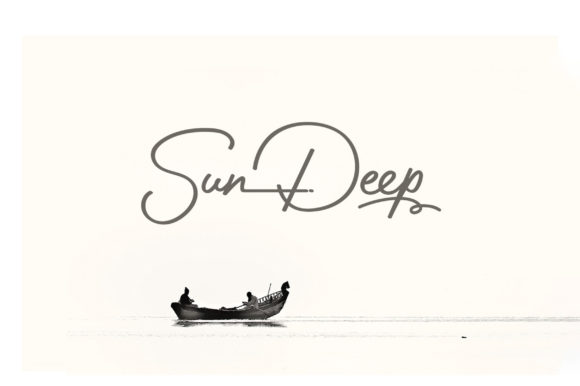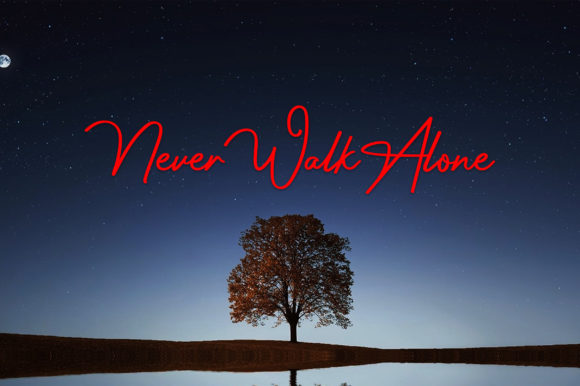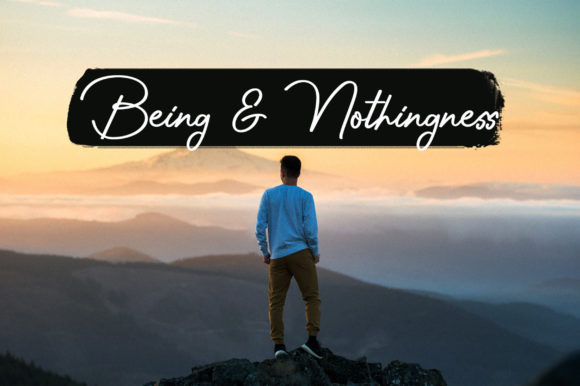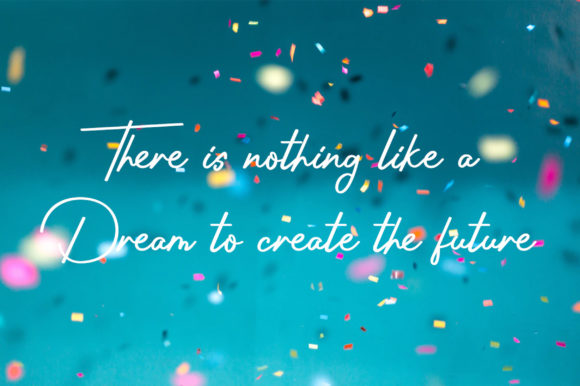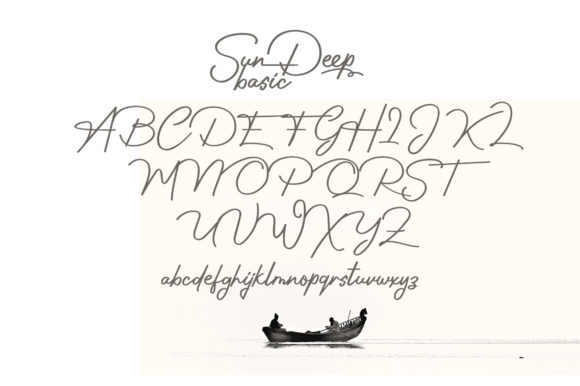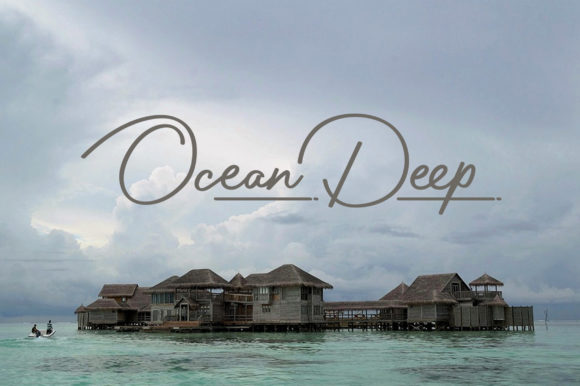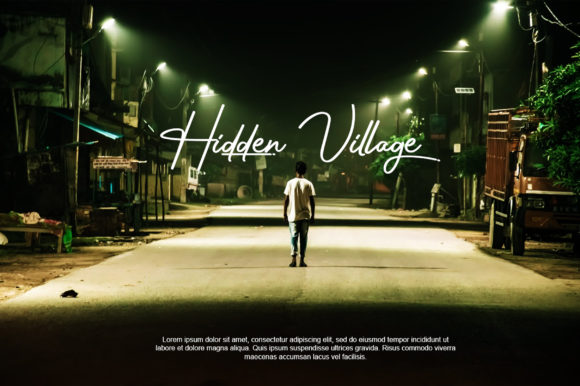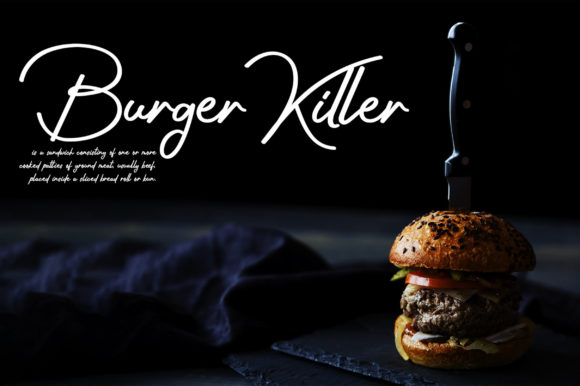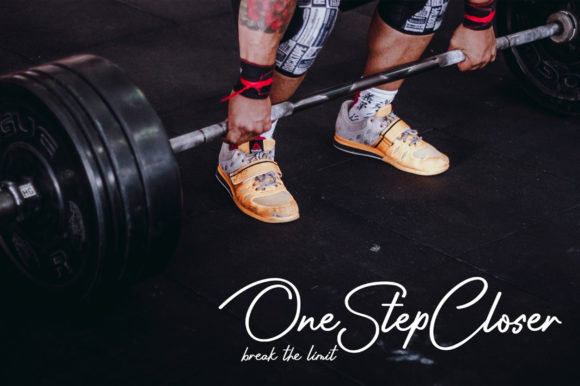
Sun Deep Font
About Sun Deep Font
Sun Deep is a beautiful and luxurious handwritten font. It looks stunning on wedding invitations, thank you cards, quotes, greeting cards, logos, business cards and every other design which needs a handwritten touch.